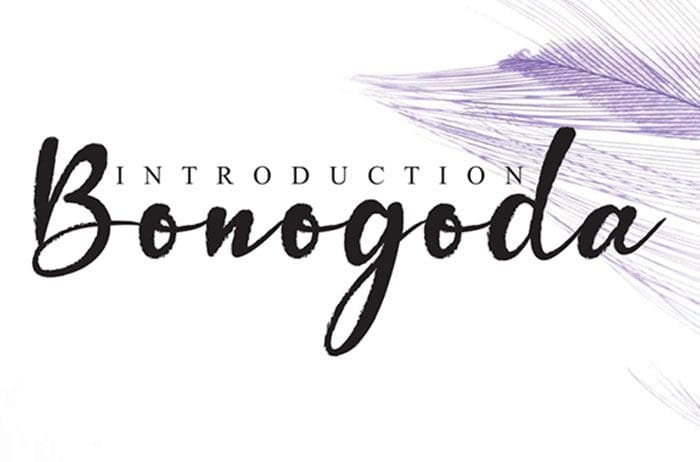
Bonogoda Handwritten Font
Bonogoda handwritten font, created by using a brush pen. Clean and a little bit quirky, this font is the perfect fit for all of your logos, branding, social media, and crafty DIY projects. Designed this font by Andika Studio. You can also search more freeĀ Handwritten Fonts.